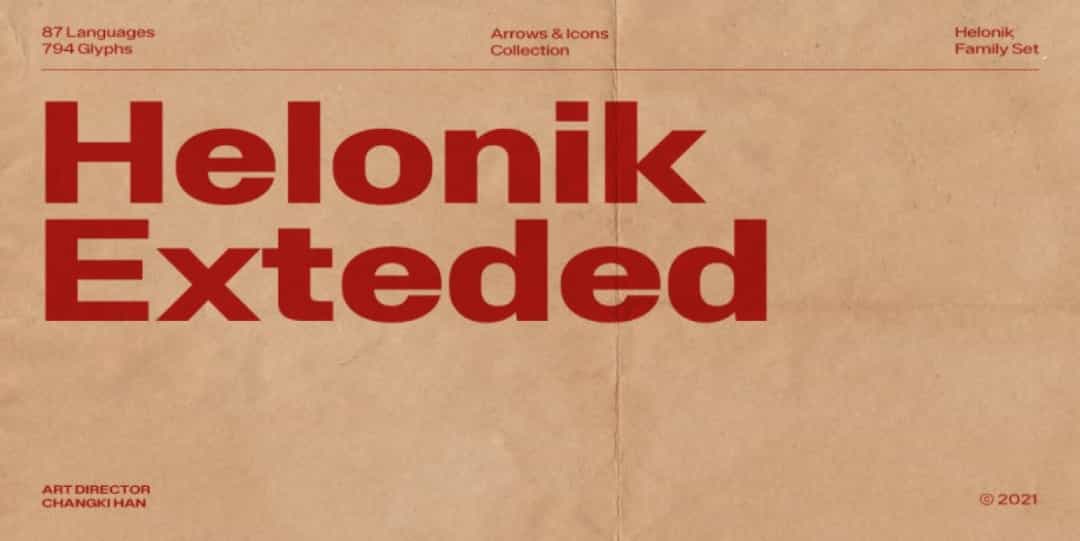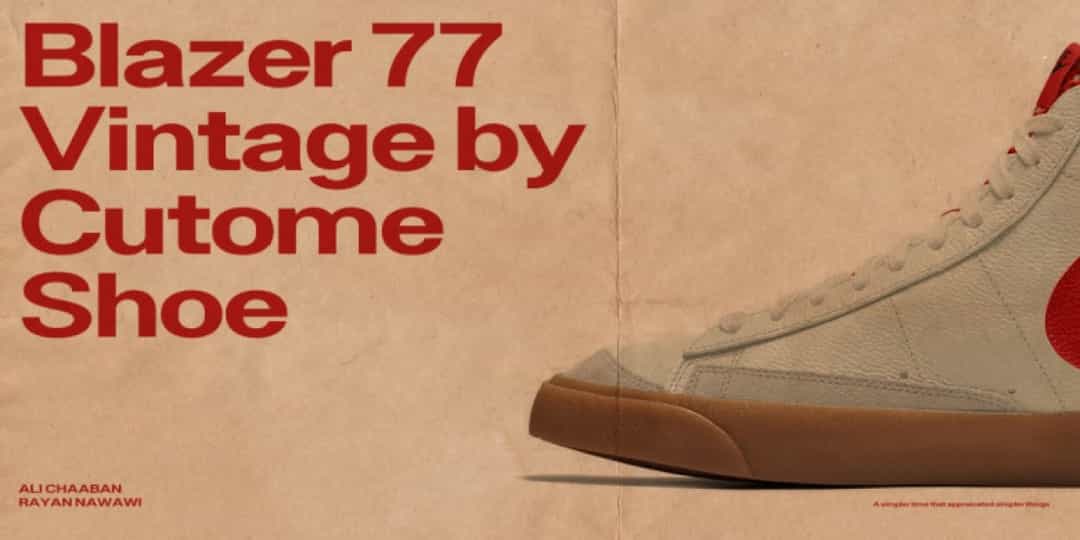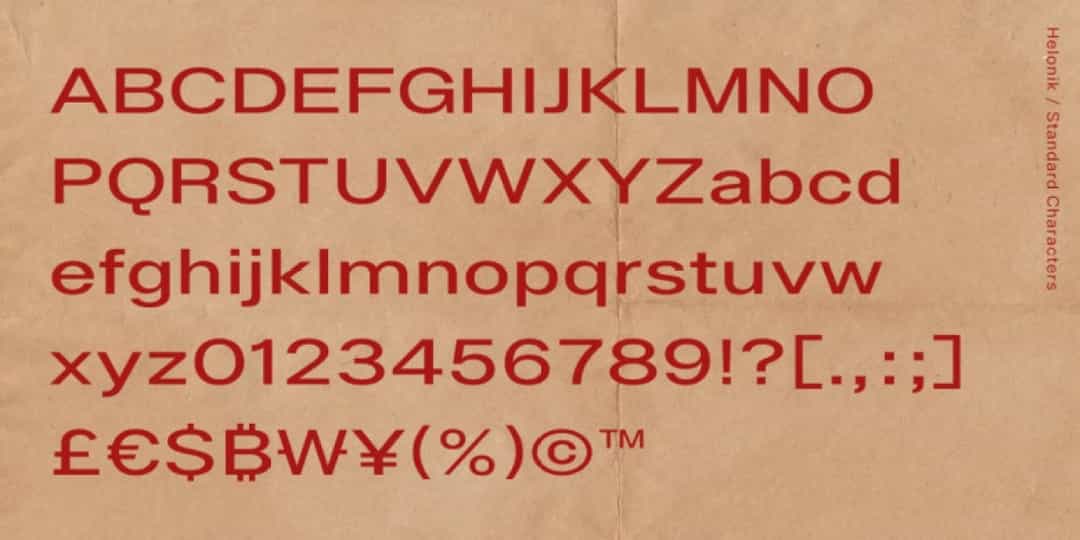
Helonik Extended Font features geometric details for an eye-catching modern sans serif that supports 87 languages. Available in 11 weights with 22 uprights for uprights as well as matching outlines and obliques, it is sure to stand out among competitors.